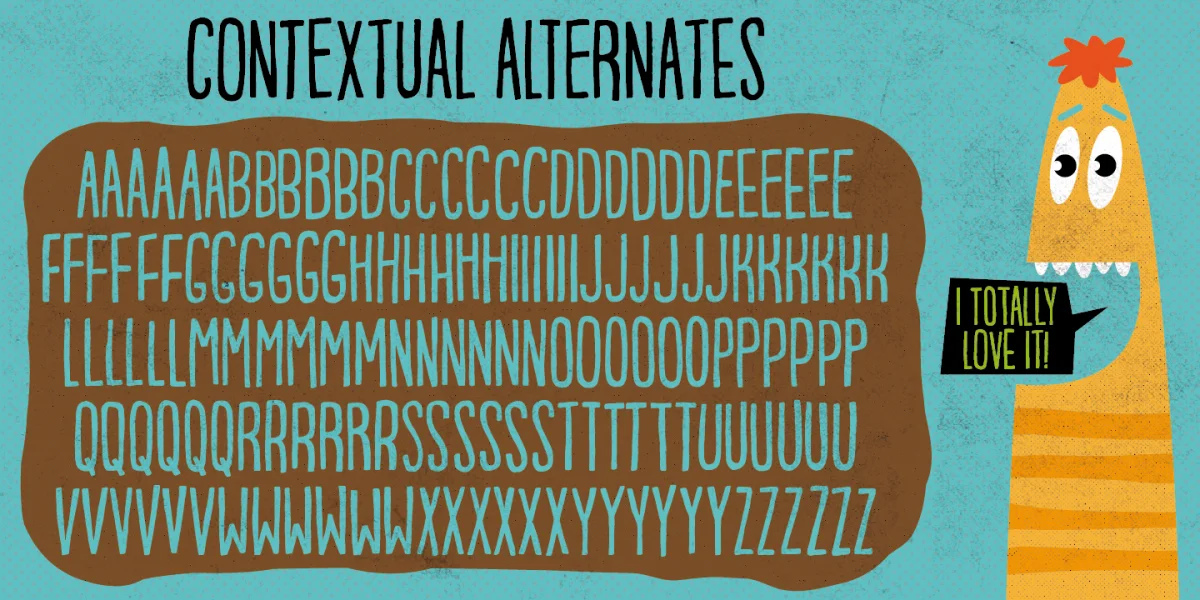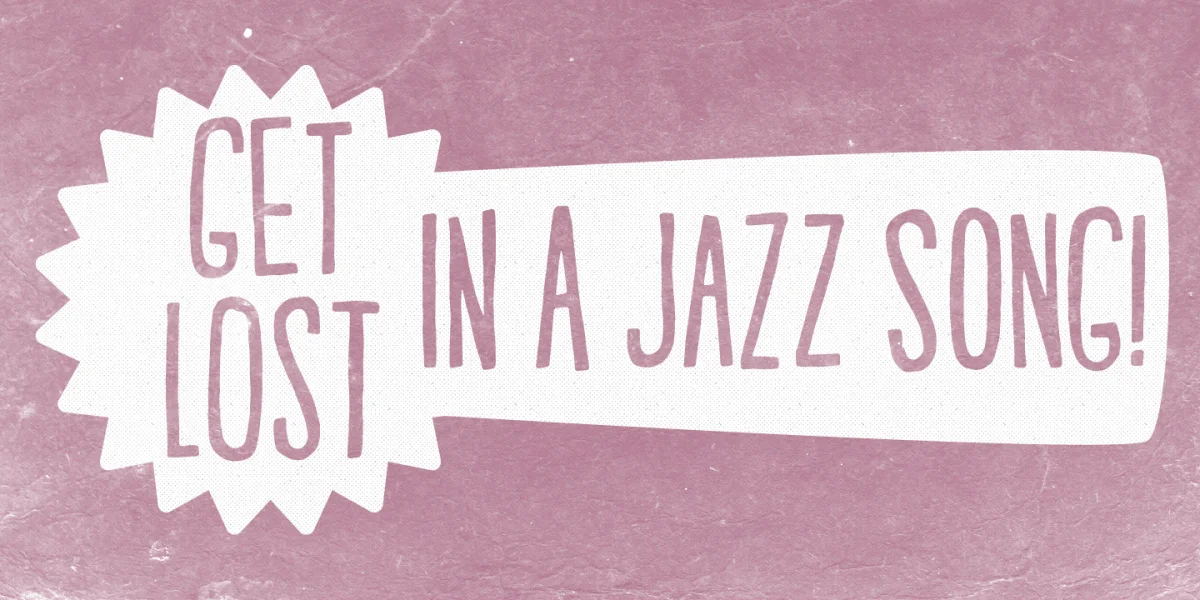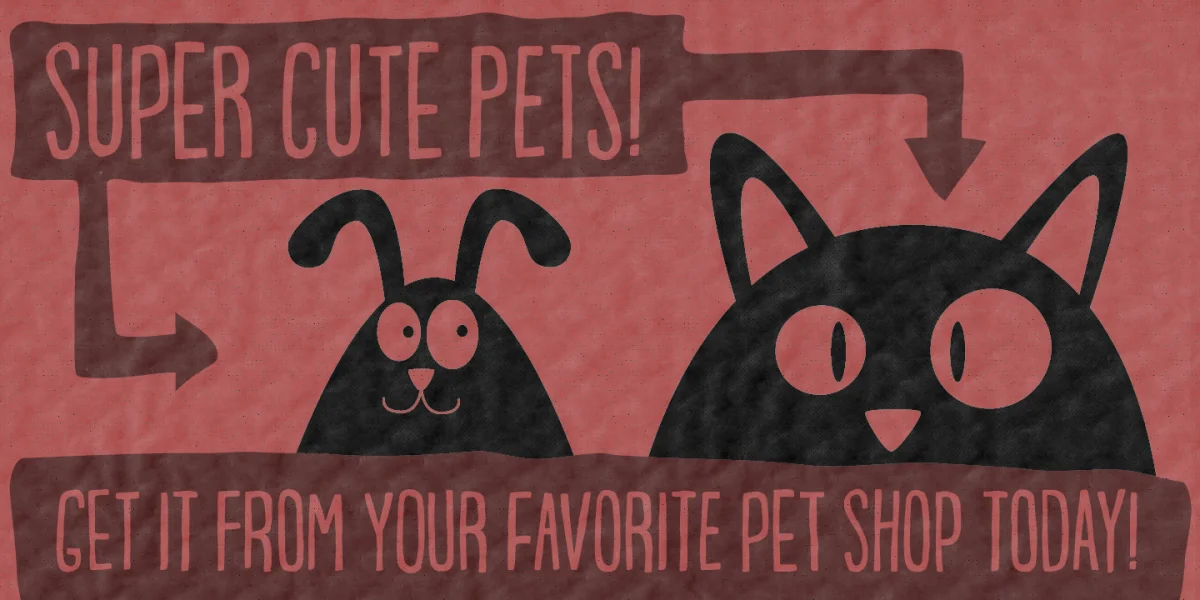
Porceleina is elegant, what more can I say? This handmade and handdrawn font comes with a heavy loadful of diacritics - and the Opentype contextual alternates makes sure that the font cycles between the six different...yes SIX different...versions of each letter from a-z! That’s quite awesome, if you ask me!